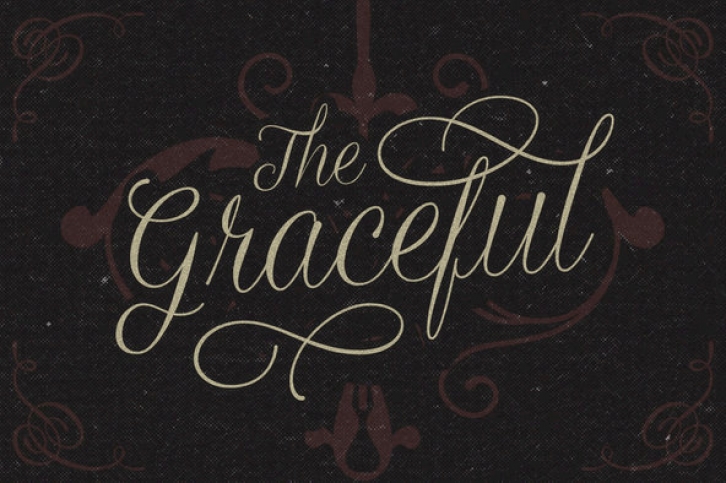
Graceful is a script typeface with a combination of formal and personal touch. Suitable for vintage themed design, wedding invitation, greeting card, label/insignia, etc. It comes up with a bunch of alternate characters which can be used to make an attractive message.
Graceful contains 317 glyphs in total and 144 alternate characters that divided into several OpenType features such as Ligature, Contextual Alternates, Stylistic Sets, and Swash. You can access all these OpenType features by using OpenType savvy programs such as Adobe Illustrator or Adobe InDesign.